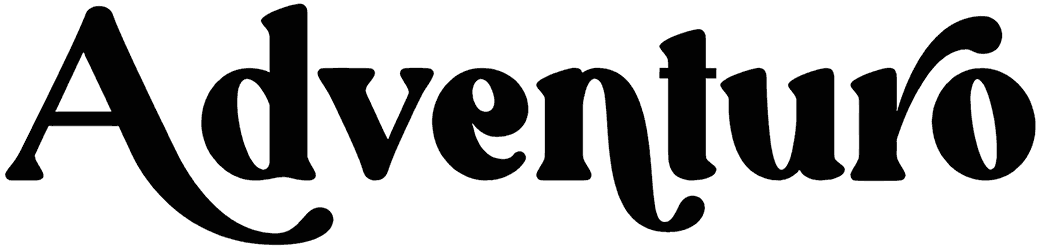
Adventuro Font
If you’re looking for a basic font with a simple look, try Adventuro. This luxury font has dignified characters with an elegant appearance that you can implement any desired decorations on, and it doesn’t make it difficult to decipher your text.
So for original projects or new brands that need readable content, add this basic font to your collection. With this, you can design posters, advertisements, brochures, and websites that are readable and last long without searching for the best font.